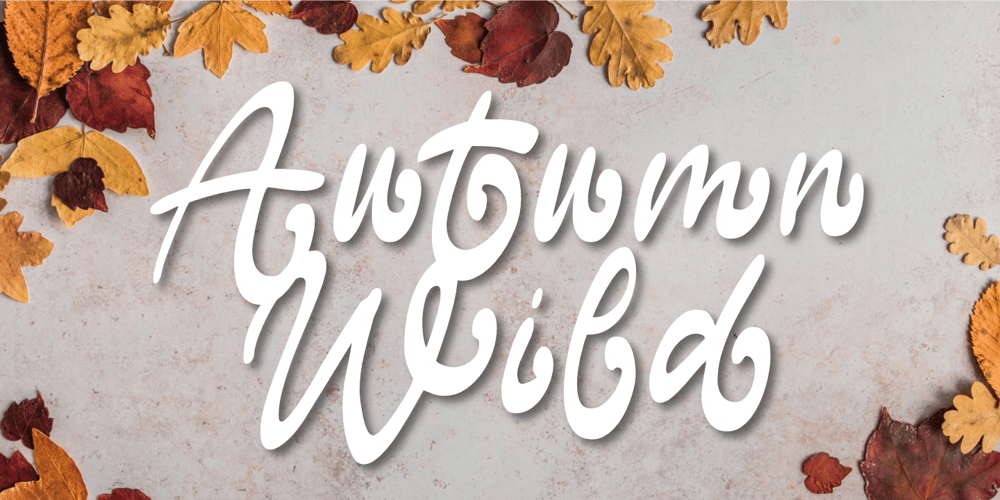
Wild Autumn Font Family was designed by Aldy Sidik and published by Epiclinez. Wild Autumn contains 1 styles and family package options. Wild Autumn is a fun and fancy handwritten font, designed to become a true favorite. It maintains its classy calligraphic influences while feeling contemporary and fresh. Fall in love with it and bring your projects to a new height.So what’s included: Basic Latin A-Z & a-z. Numbers, symbols, and punctuations Multilingual Support. Accented Characters : ÀÁÂÃÄÅÆÇÈÉÊËÌÍÎÏÑÒÓÔÕÖØŒŠÙÚÛÜŸÝŽàáâãäåæçèéêëìíîïñòóôõöøœšùúûüýÿžß Thank you. We hope you enjoy the font.